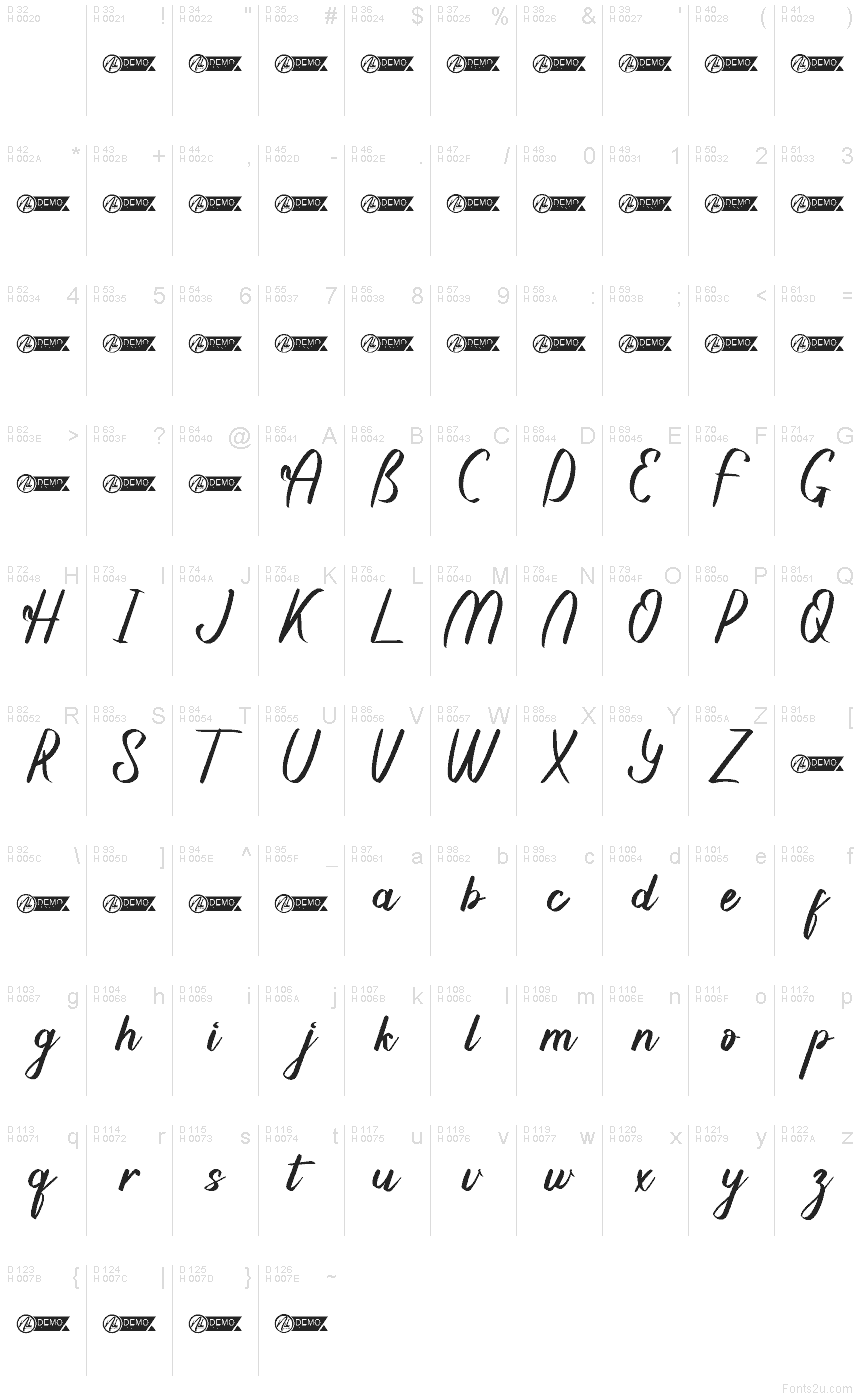
Afternoon Walk Demo
Afternoon Walk font by NihStudio is a free handwritten font that captures elegance and fluidity with an expressive, personal touch. Its signature style and organic flow make it an ideal choice for those seeking a natural, heartfelt design approach.
Afternoon Walk enhances personal projects like greeting cards, invitations, book covers, stationery, and photo overlays. The font also effortlessly elevates commercial designs for logos/branding, product packaging, posters/flyers, clothing labels or prints – each looking absolutely stunning!